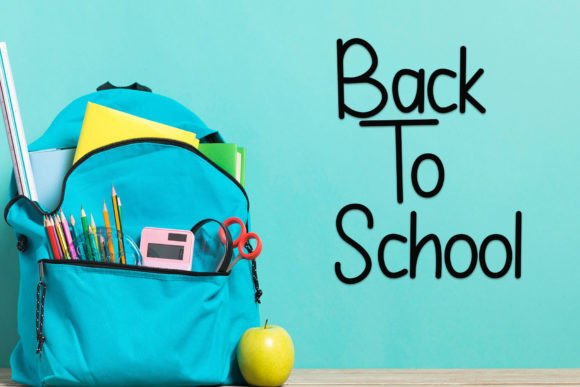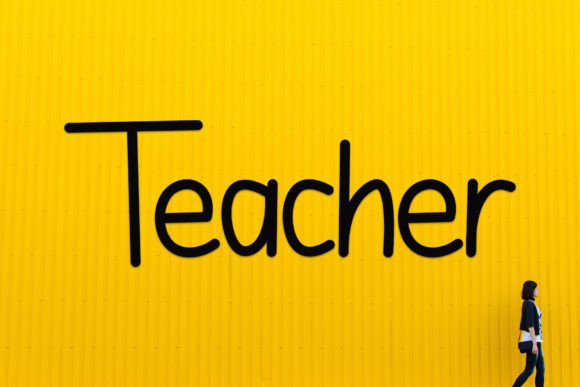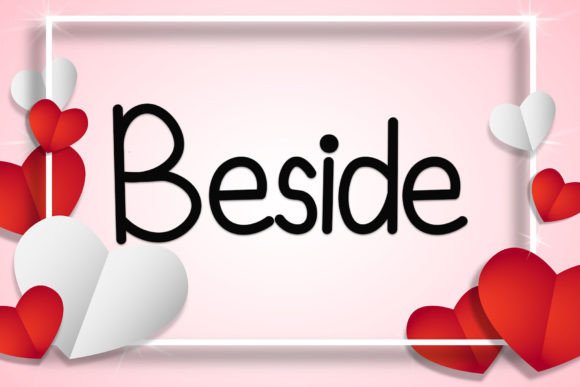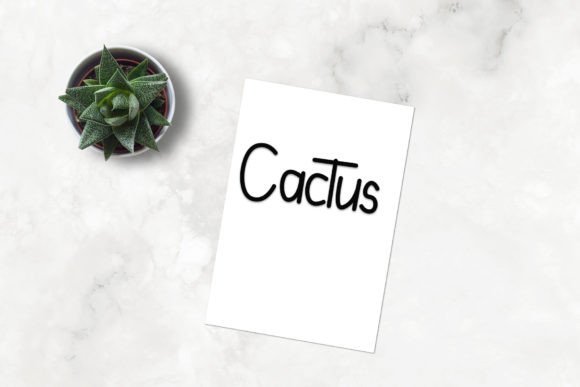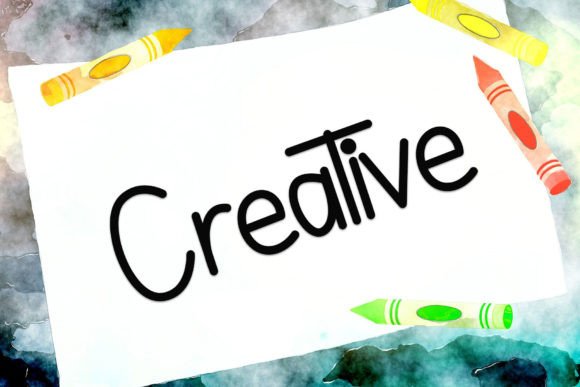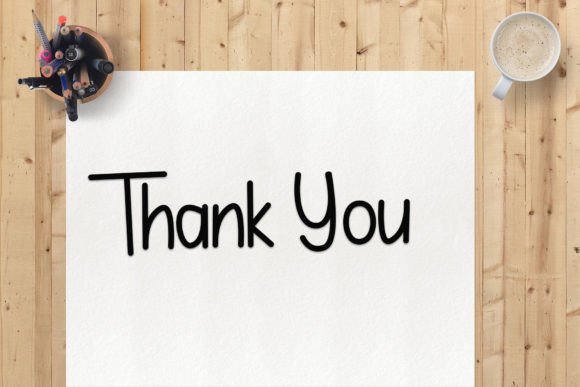
The Quest for the Perfect Font: Discovering Fabulous
I still remember the time I was working on a wedding invitation project, and I was on a mission to find the perfect font. My client wanted something that exuded warmth, elegance, and a touch of whimsy. I scoured the internet, tried out countless fonts, but nothing seemed to fit the bill. That was until I stumbled upon Fabulous, a characterful and cute handwritten font that stole my heart. In this article, I’ll share my experience with Fabulous, its features, and how to make the most of it in your designs.
A First Impression: What Makes Fabulous Special
Fabulous is a beautiful, handwritten font that’s perfect for celebration days, weddings, and any design that requires a soft, characterful touch. What sets it apart is its PUA encoding, which allows easy access to all the glyphs and ligatures. This means you can create stunning designs with a personal touch, without needing to learn complex font editing software.
Here’s what I love about Fabulous:
- ✨ Characterful and cute: Fabulous has a unique personality that adds a touch of warmth to any design.
- ✅ PUA encoded: Easy access to glyphs and ligatures makes designing a breeze.
- 💕 Perfect for celebrations: Weddings, birthdays, or anniversaries – Fabulous is the perfect fit.
And here are a few quirks to keep in mind:
- 🤔 Limited use in very formal designs: Fabulous is best suited for creative, informal projects.
- ⚠️ May require some kerning adjustments: As with any font, you might need to tweak kerning for optimal results.
The Story Behind Fabulous: Designer Inspiration
Fabulous was created with the intention of capturing the magic of celebration days. Its designer wanted to craft a font that would add a touch of warmth and personality to wedding invitations, cards, and other designs. With Fabulous, you can create stunning visuals that speak to the heart.
| What is PUA encoding? | PUA (Private Use Area) encoding allows font creators to include additional glyphs and characters that aren’t part of the standard Unicode character set. This means you can access unique characters and ligatures in Fabulous. |
| Is Fabulous suitable for body text? | While Fabulous is a beautiful font, it’s best suited for headlines, titles, and short paragraphs. For body text, a clearer font might be more readable. |